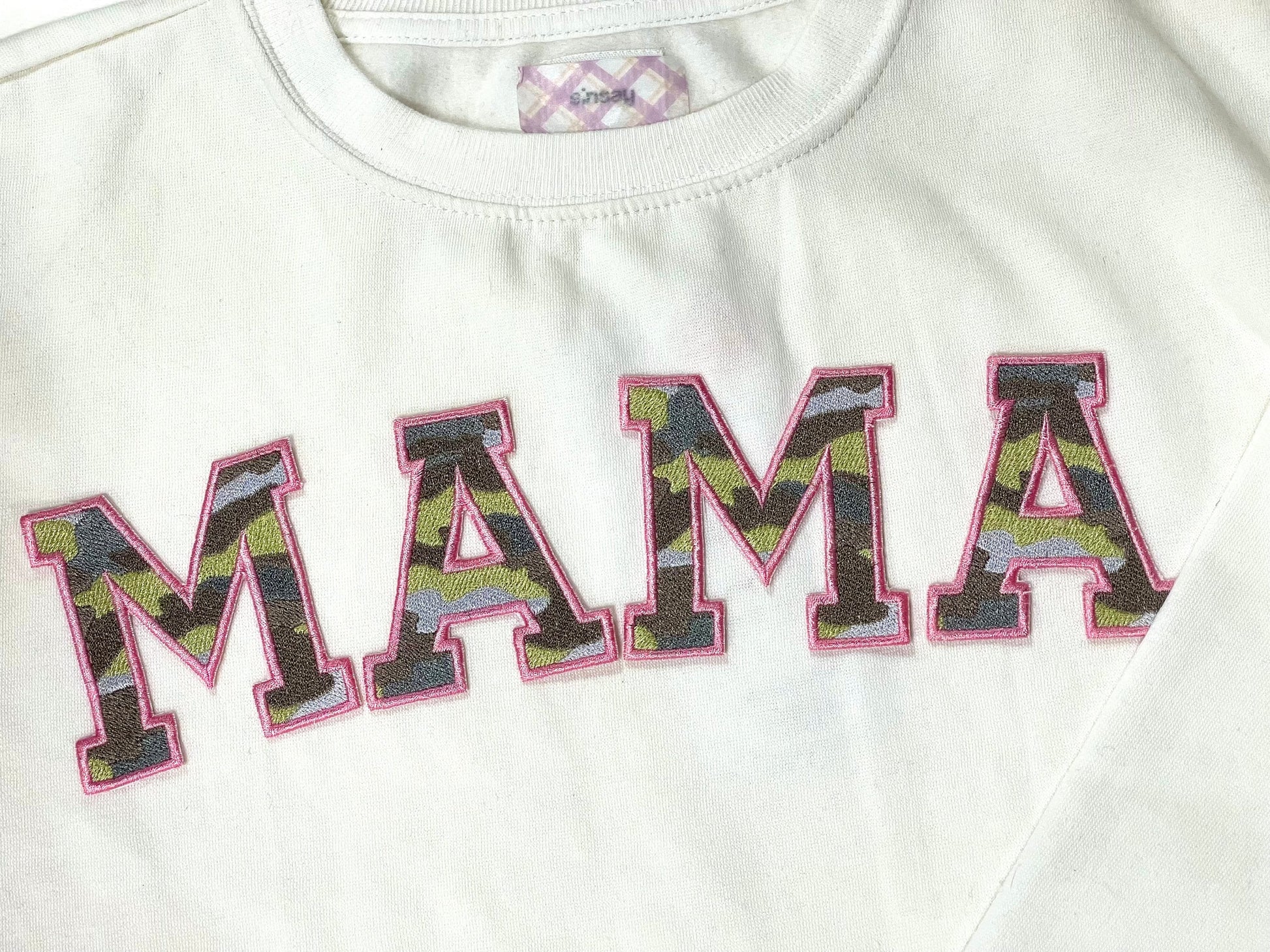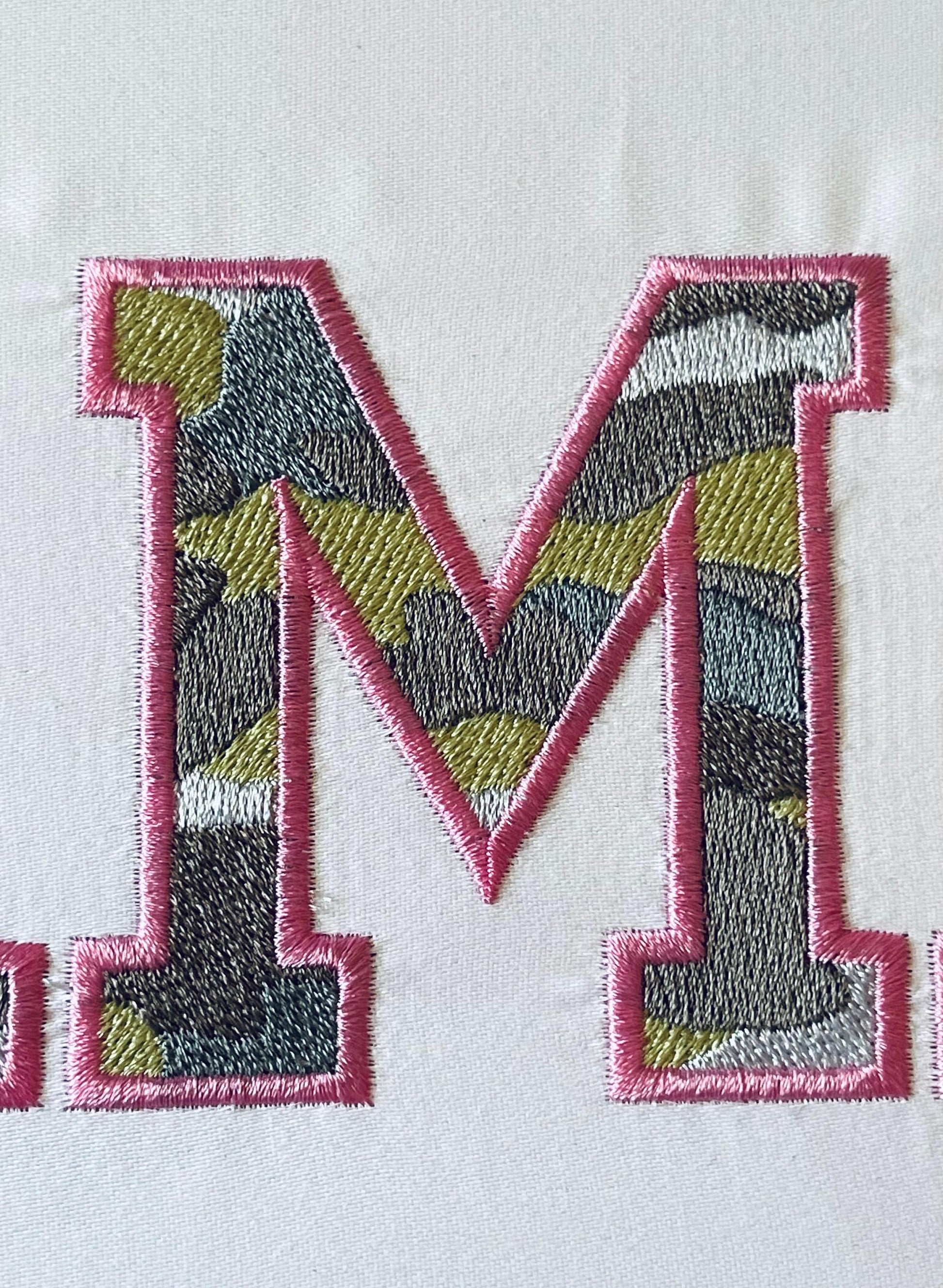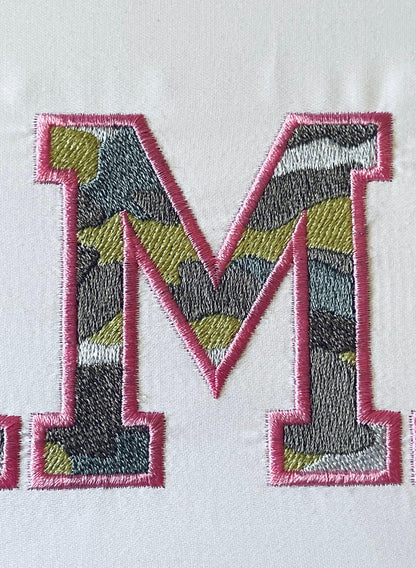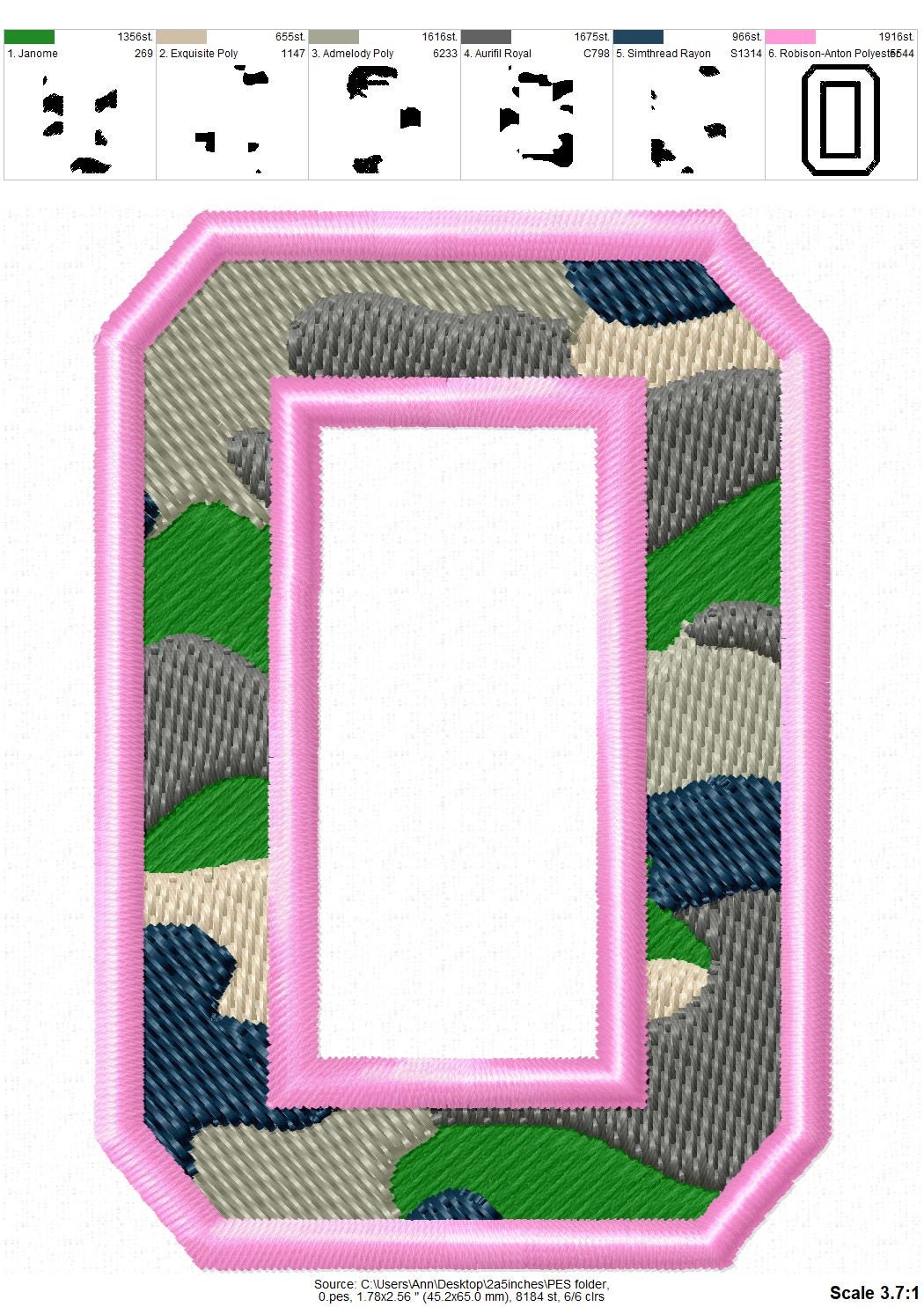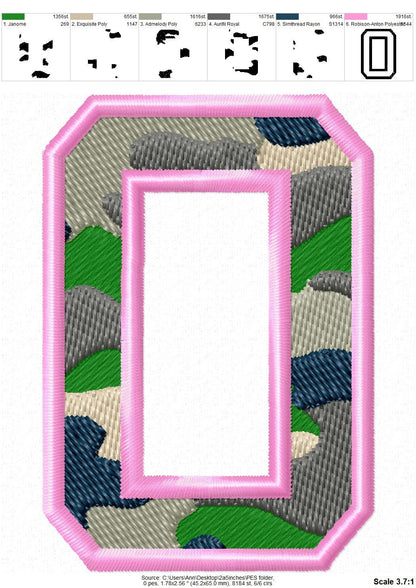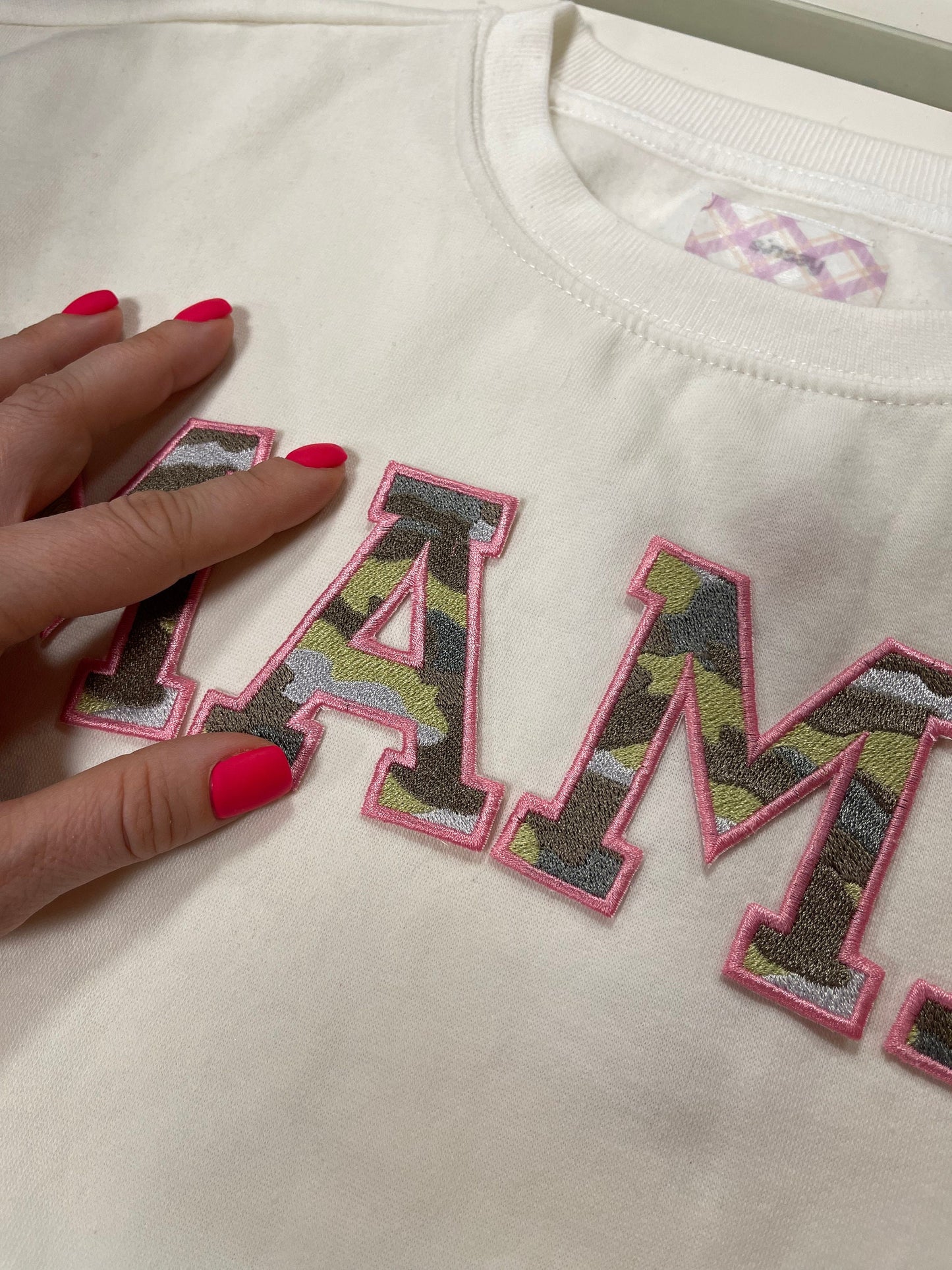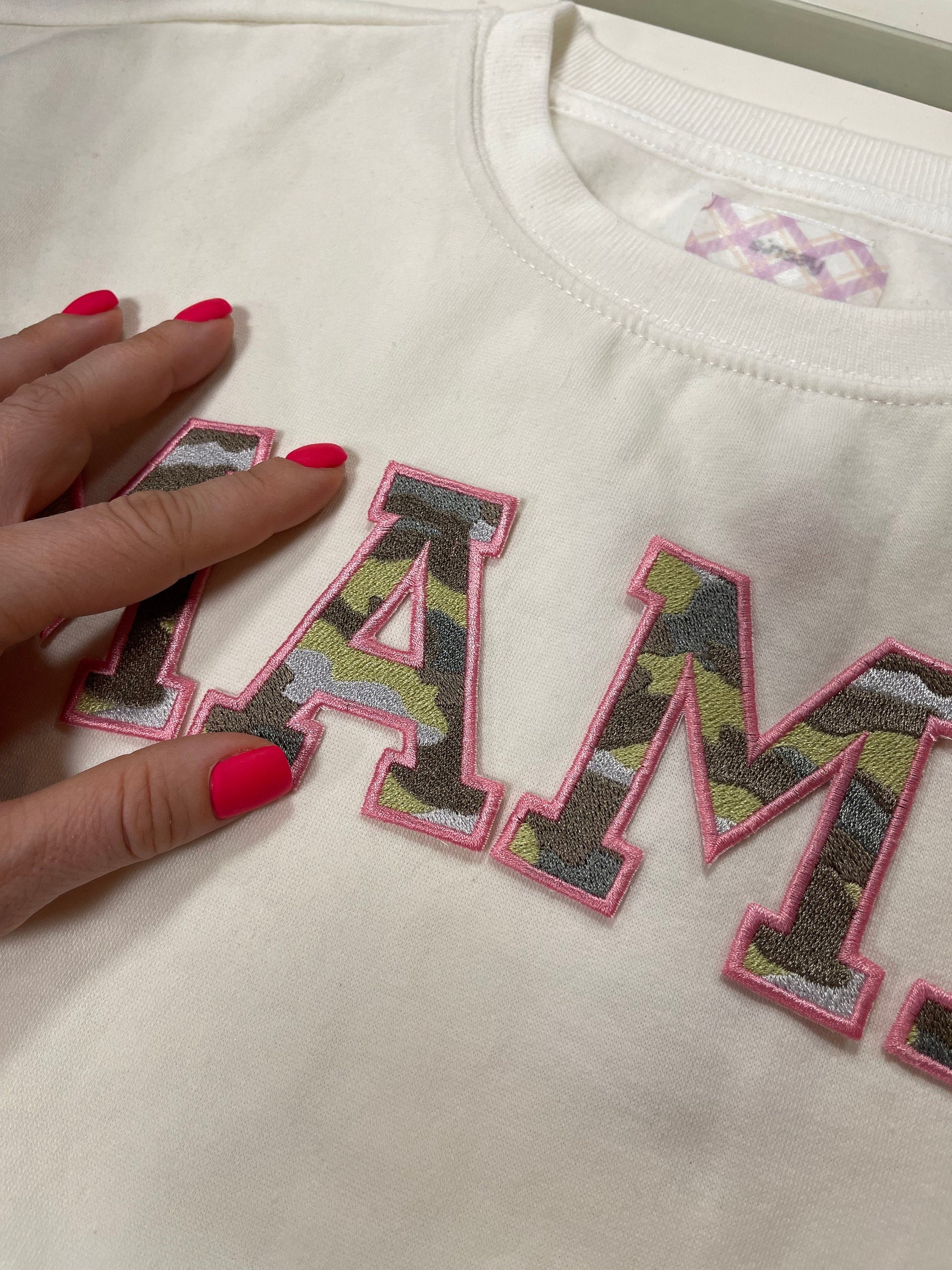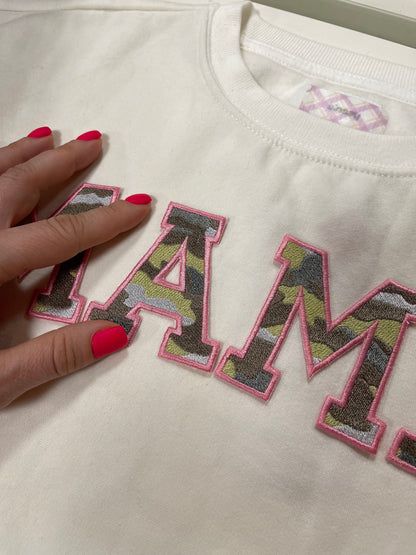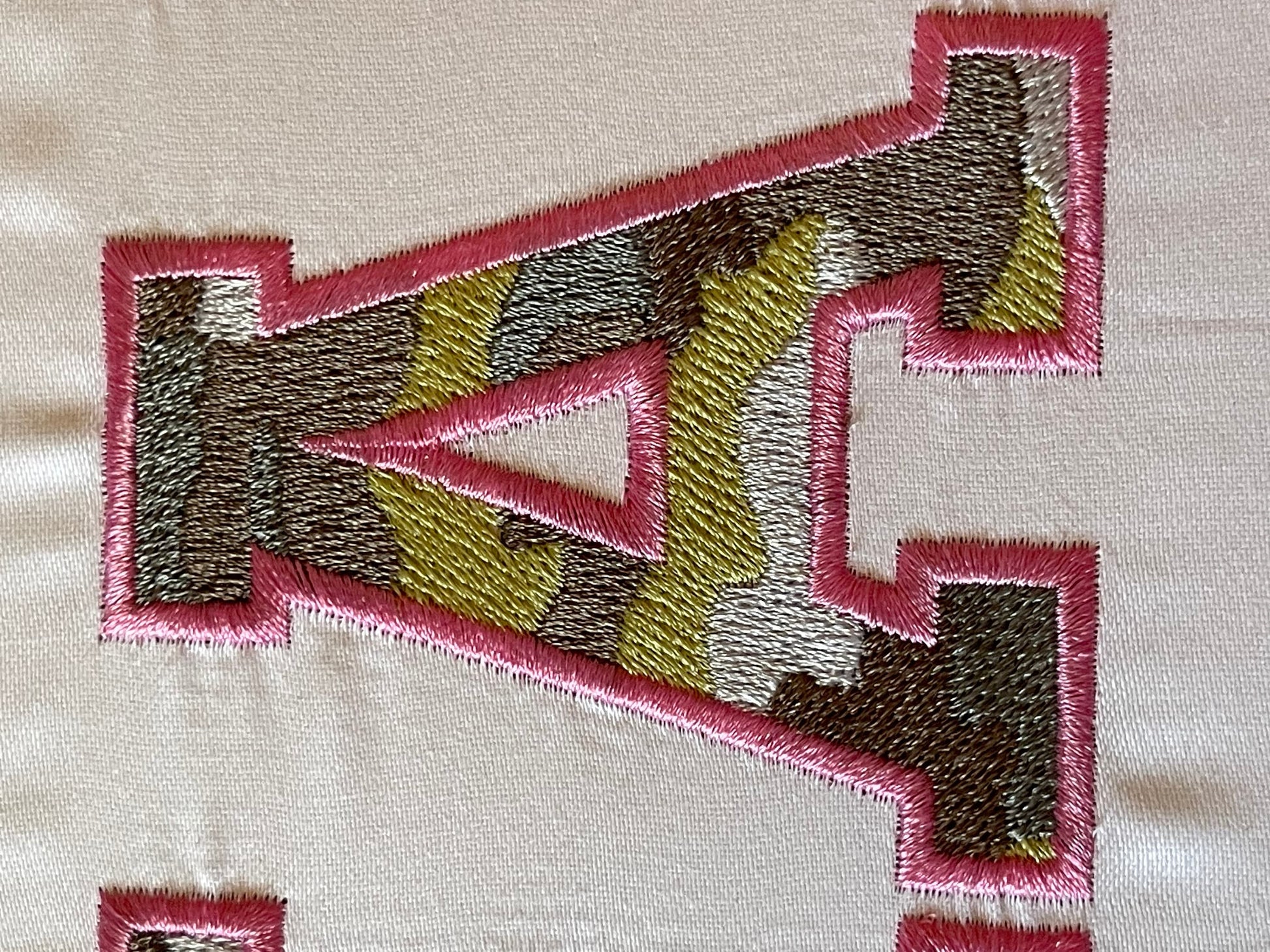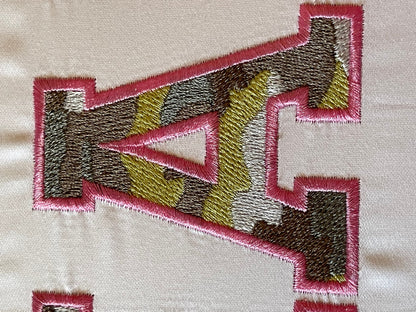
Or click to open the linkA varsity camouflage font in fill stitch. Great for army-themed shirts, hunters' caps, team wear and boys' birthdays.
Uppercase letters A to Z, numbers 0 to 9, a period and a slash. Six sizes: 2, 2.5, 3, 3.5, 4 and 4.5 inches. Five camo colors and an outline.